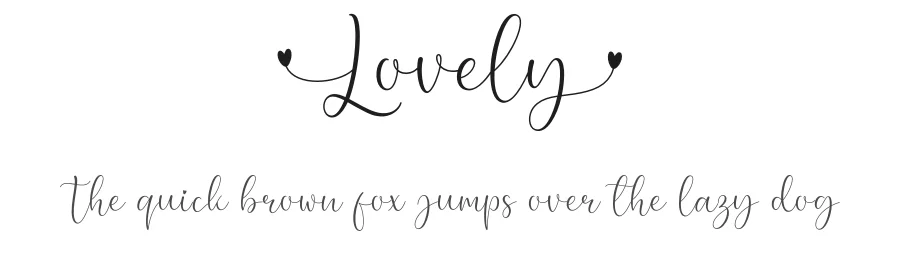
About Homelland Font
Homelland ships with 1 OpenType feature you can switch on in apps that support them (Illustrator, InDesign, Affinity, Figma, CSS font-feature-settings).
Homelland supports 203 languages.
Homelland Font is a script font that shines as a display or heading face. Pair it with a clean sans-serif or serif font for body text β the contrast creates a clear hierarchy while the two styles stay balanced and easy to read.